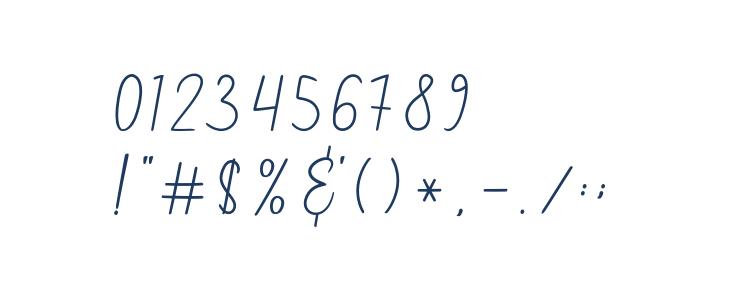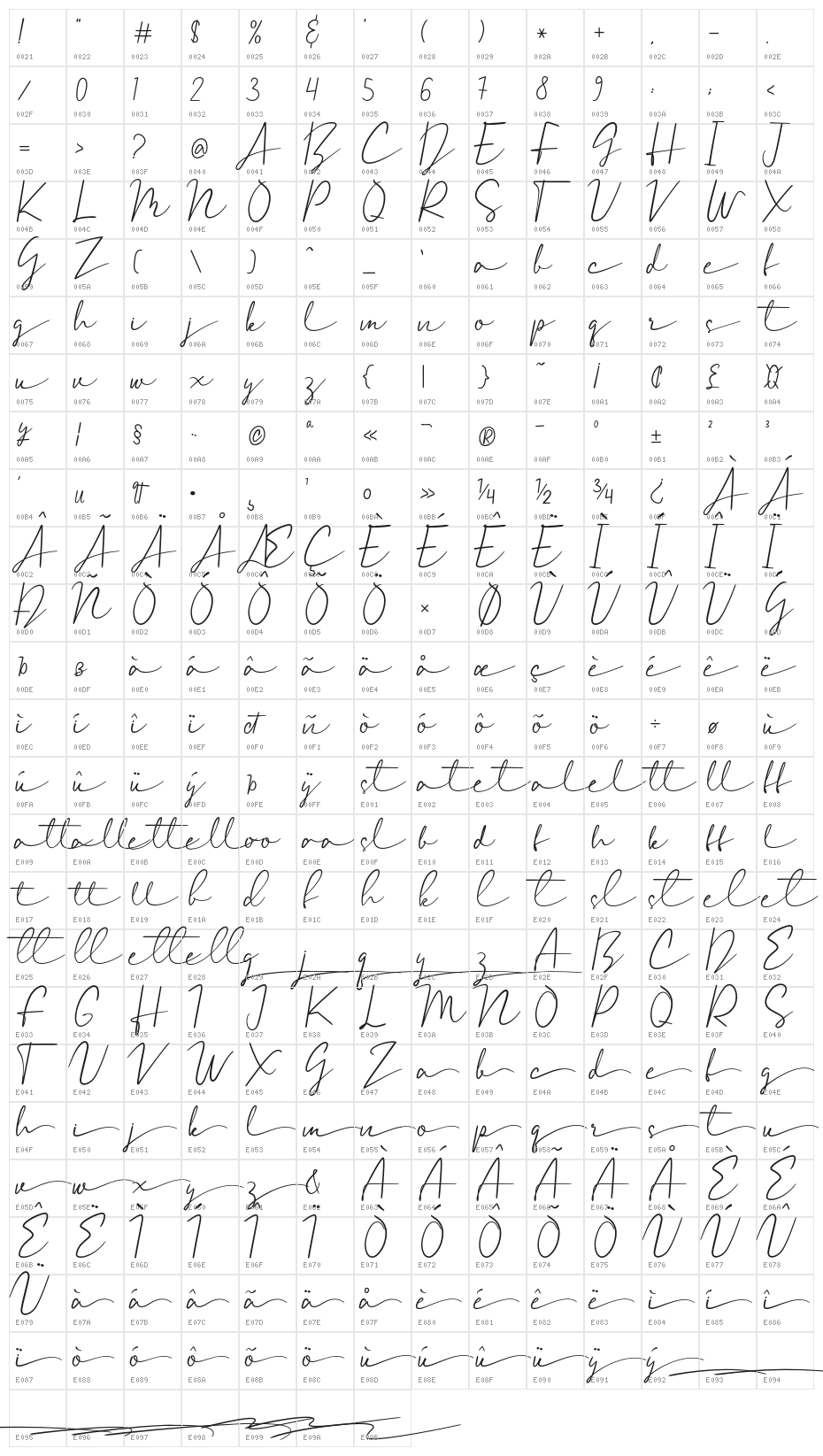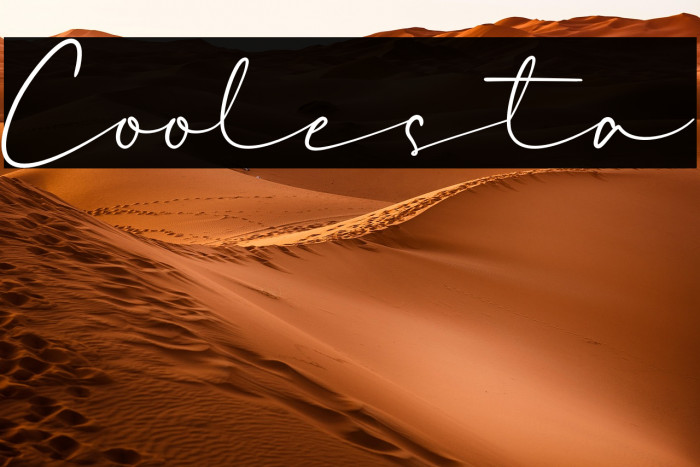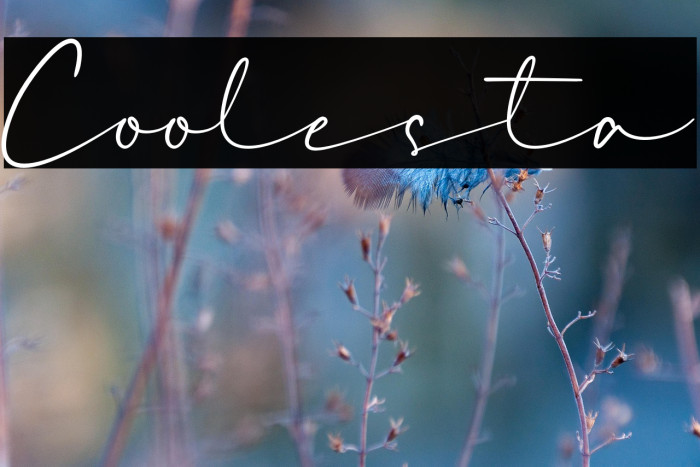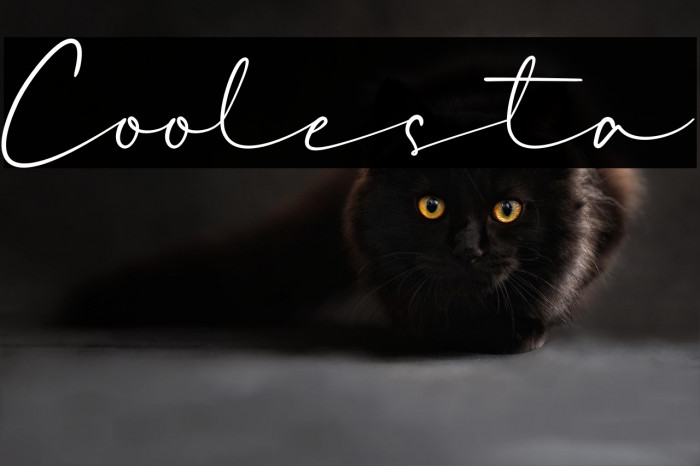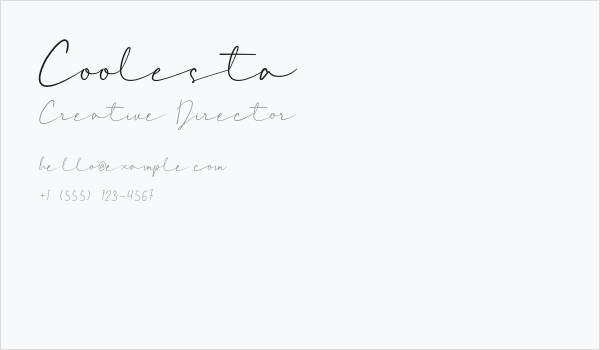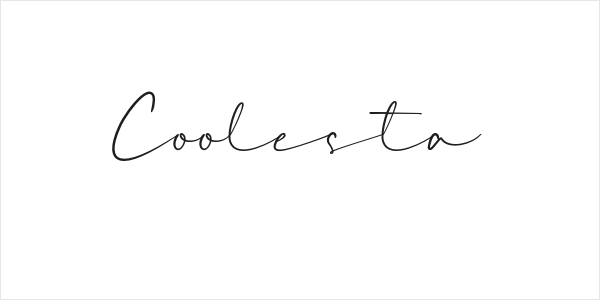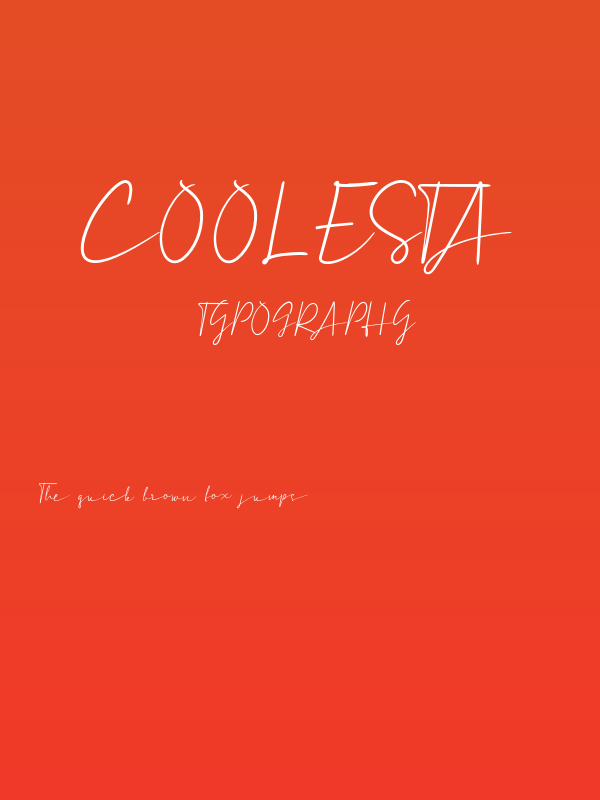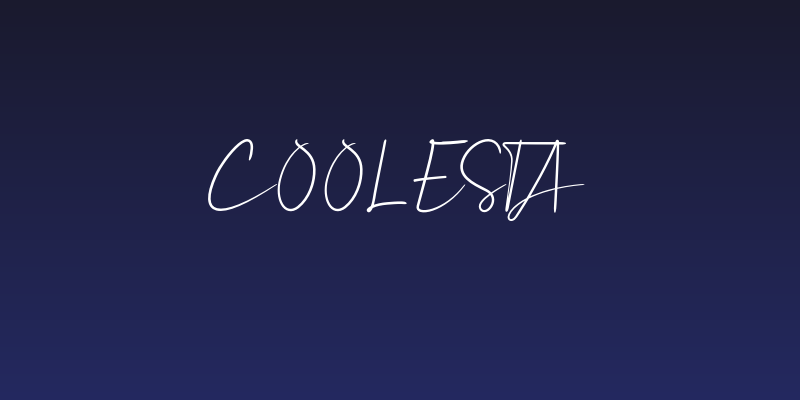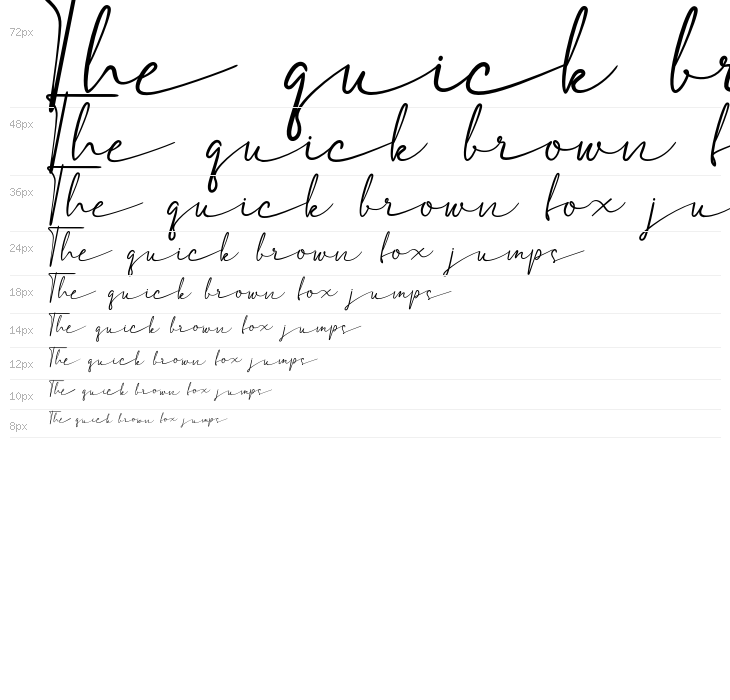
Coolesta Font
Coolesta Description
This font features a modern, handwritten style with a casual and flowing appearance. The uppercase letters are tall and slightly slanted, giving a sense of elegance and movement. The lowercase letters maintain a consistent flow, with smooth curves and a natural, handwritten feel. Numbers are clear and legible, matching the overall style with a slight slant. Special characters are well-integrated, maintaining the cohesive look of the font. The thin strokes and consistent line weight contribute to its airy and light appearance, making it suitable for projects that require a personal touch.